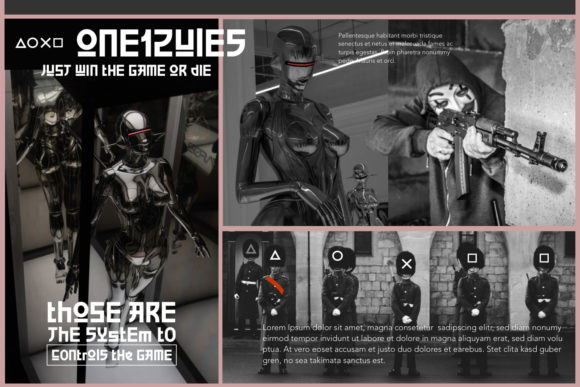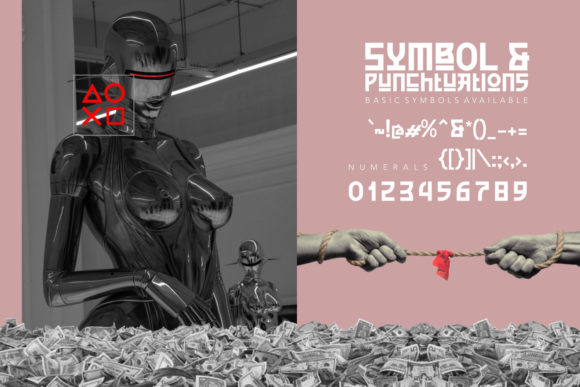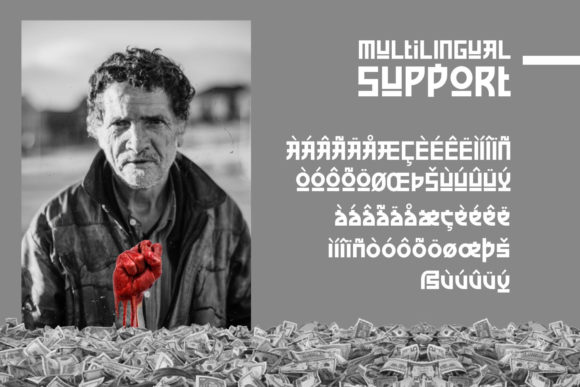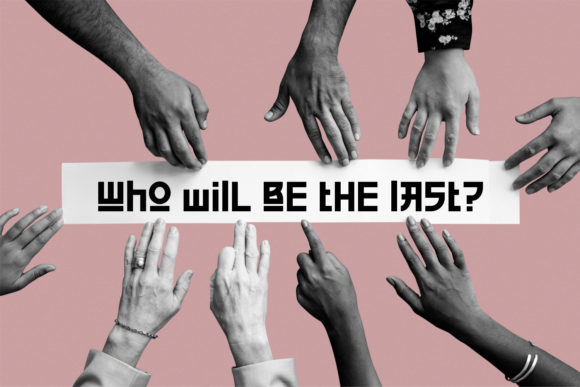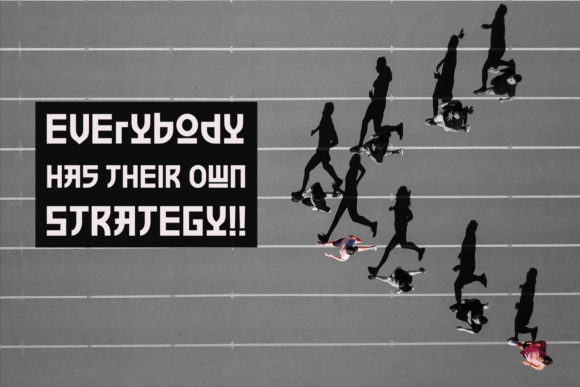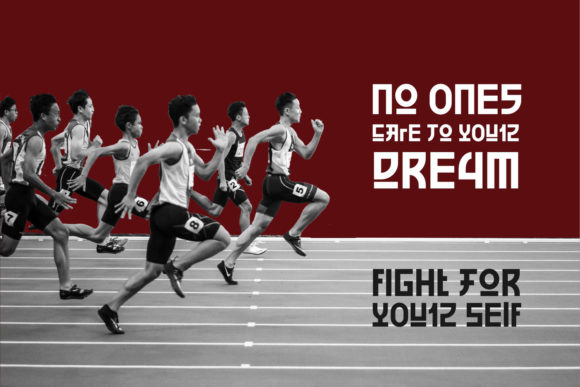
Introduction to Money Game Font
Inspired by popular Korean series, Money Game is a great companion for your Korea-themed designs.
It’s perfect for movie posters, greeting cards, social media content, youtube videos, logo design, etc The characters look like Korean writing – they will create Korean emotions.
Key Features of Money Game Font
Why Choose Money Game Font?
Money Game Font offers exceptional quality and versatility, making it a valuable addition to your design toolkit. Whether you’re creating for personal projects or commercial use, Money Game Font delivers professional results.